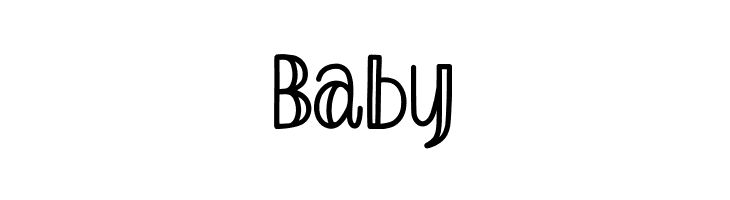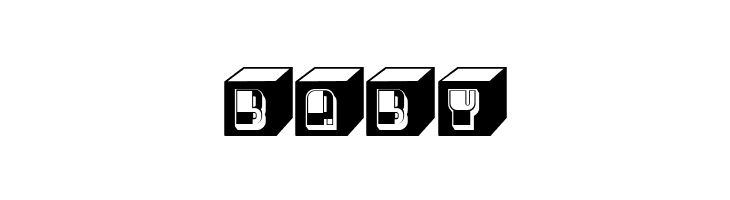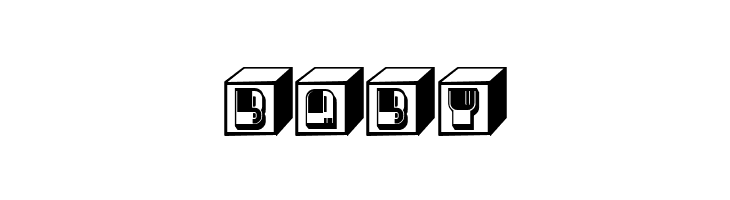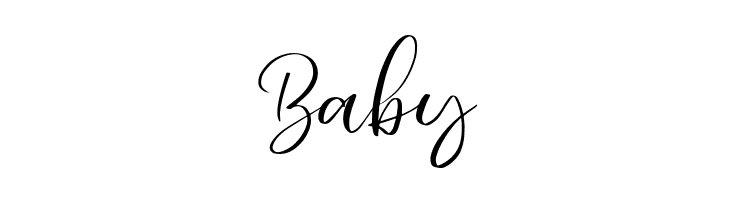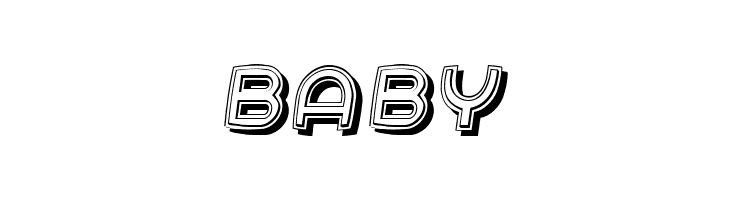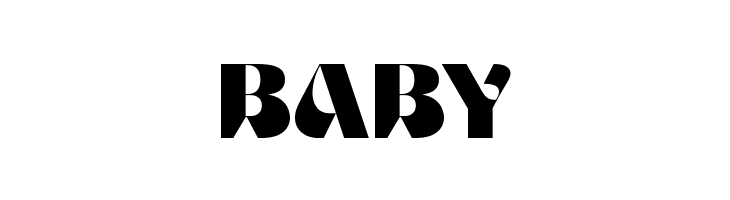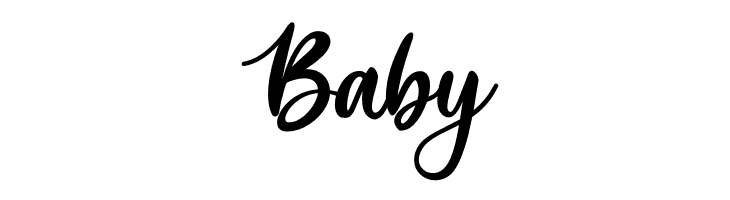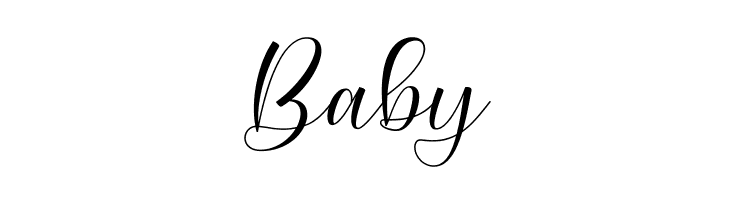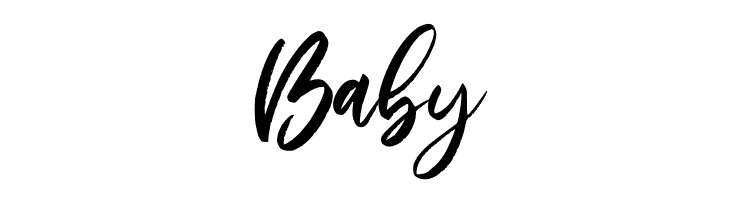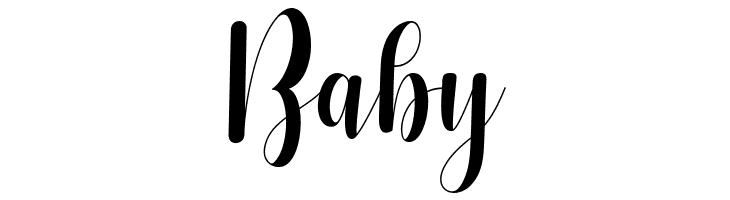
A graceful and flowing script font with elegant, cursive lines.
A dynamic, cursive script font with fluid, connected strokes.
A playful, hand-drawn style font with rounded edges and elongated forms.
A playful, cartoonish font with rounded edges and a hand-drawn style.
A bold, flowing script font with elegant, cursive design.
A dynamic, flowing script font with elegant, cursive letterforms.
A modern vintage font with elegant curves and distinct serifs.
A bold, 3D block-style font with cube-like encasements and sharp geometric edges.
A bold 3D block font with a vintage, decorative style.
A bold, rounded font with a modern and futuristic style.
A bold, italic, and modern font with rounded, connected characters.
A modern, italic font with rounded, consistent strokes and a dynamic appearance.
A modern, geometric font with rounded lines and a futuristic style.
A bold, handwritten script font with a dynamic and energetic style.
A bold, energetic script font with flowing, connected strokes.
A graceful script font with flowing curves and high contrast strokes.
A cursive, handwritten font with elegant, flowing strokes.
A dynamic, italic script font with flowing, interconnected strokes and high contrast.
A flowing, cursive font with elegant loops and artistic flair.
An elegant script font with flowing, cursive style and intricate loops.
A modern, elegant script font with flowing, cursive lines and graceful loops.
A flowing, cursive script font with elegant, high-contrast strokes.
A cursive, handwritten font with elegant, flowing strokes.
A charming and elegant handwritten font with fluid, connected letterforms.
An elegant, cursive script font with interconnected, flowing letters.
A playful, bold font with rounded edges and a hand-drawn style.
A playful, bold handwritten font with a smooth, rounded style.
A geometric and artistic font with circular accents and modern design.
A bold, playful handwritten font with rounded, uniform strokes.
A dynamic and expressive script font with fluid, cursive letterforms.
A decorative, cursive font with elegant loops and a handwritten style.
A bold, 3D-effect font with a playful and structured design.
A bold, geometric font with a hand-drawn, edgy style.
A bold, modern font with geometric influences and sharp angles.
A bold, geometric font with high contrast and a modern, decorative style.